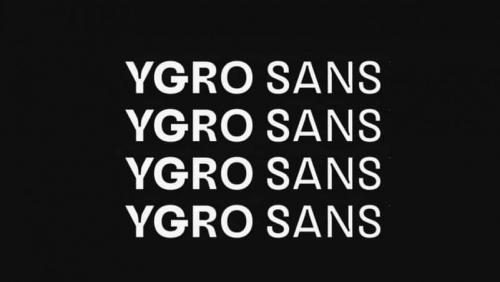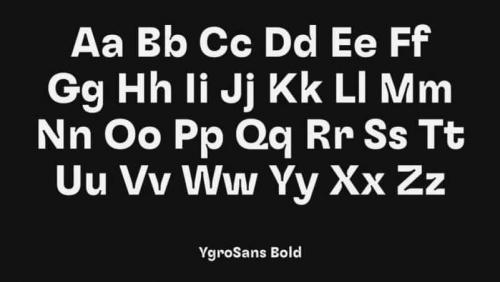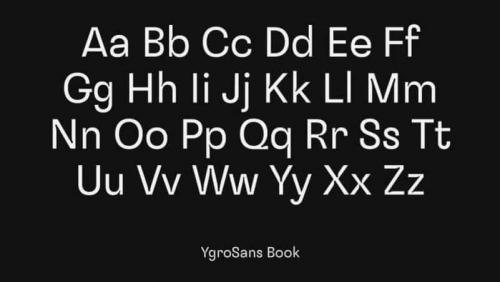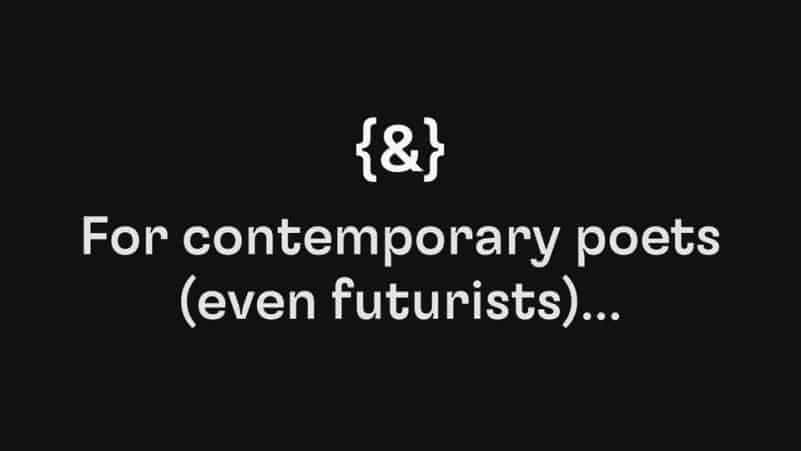
Ygro Sans Serif Font Family
Ygro Sans Serif Font is a multilingual, classic Modern vintage serif typeface. This is a very versatile font that works well in large and small sizes. It combines geometric foundation, a grotesque pedigree and a playful tone of voice.